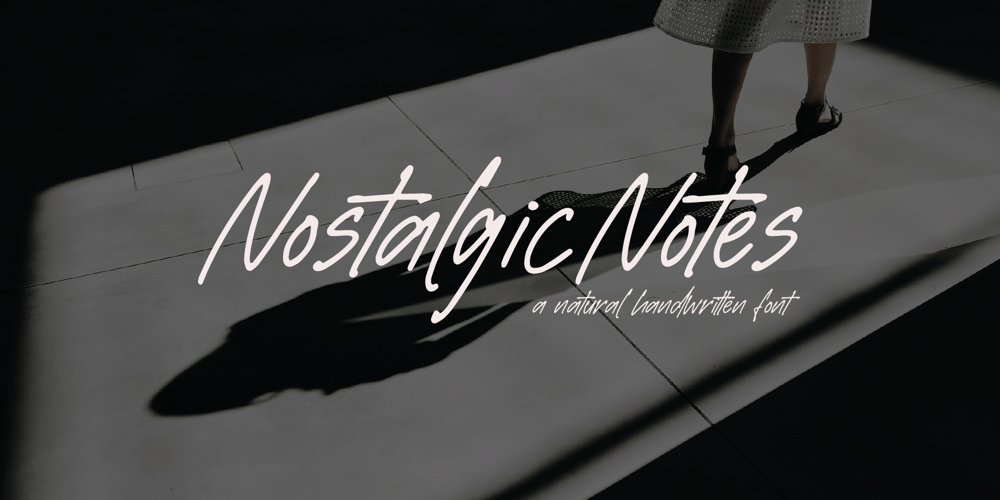
Nostalgic Notes Font Family was designed by Zak M and published by Prestige Artsy Studio. Nostalgic Notes contains 1 styles and family package options. Nostalgic Notes is a powerful handwritten and complex emotional font that associates your feelings with a longing for the past. Nostalgic Notes works and matches perfectly with Le Charisme or any thin modern serif. Nostalgic Notes is a powerful and complex emotional font that associates your feelings with a longing for the past. Nostalgic Notes is perfect for quotes, social media, logos, titles, magazines, packaging and much more.